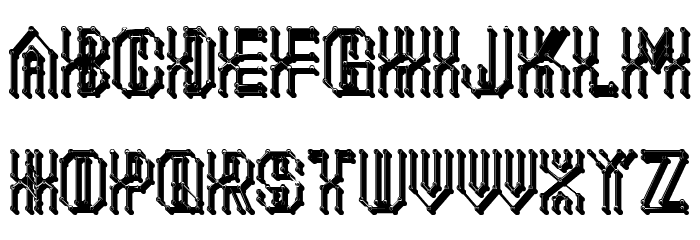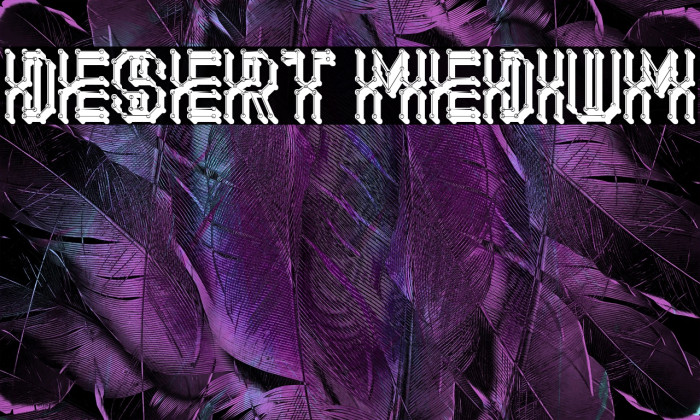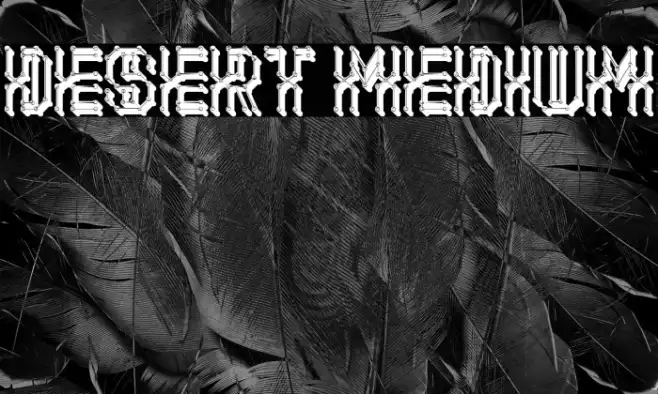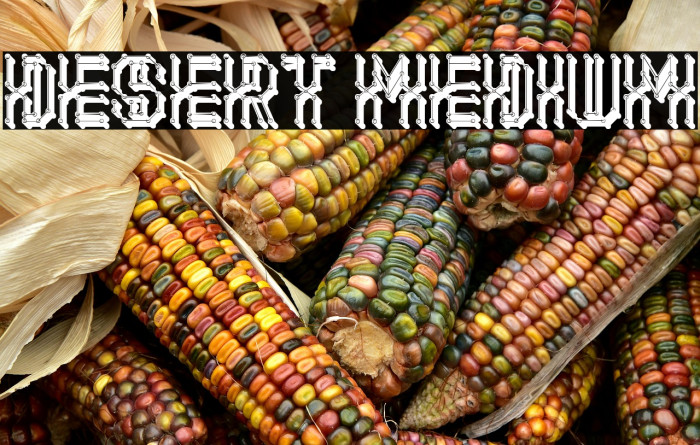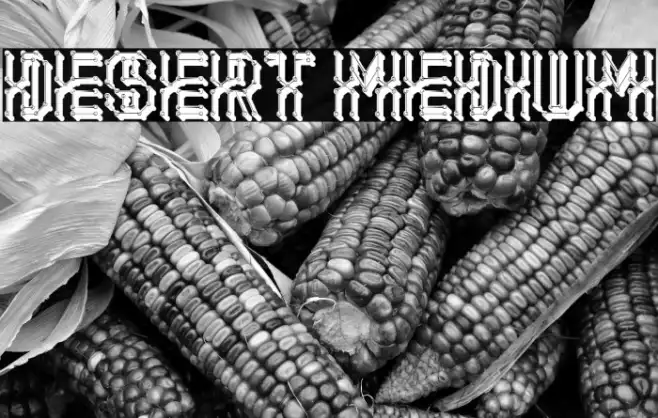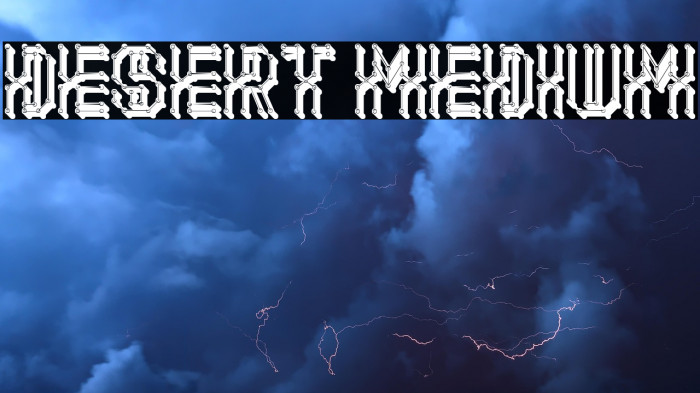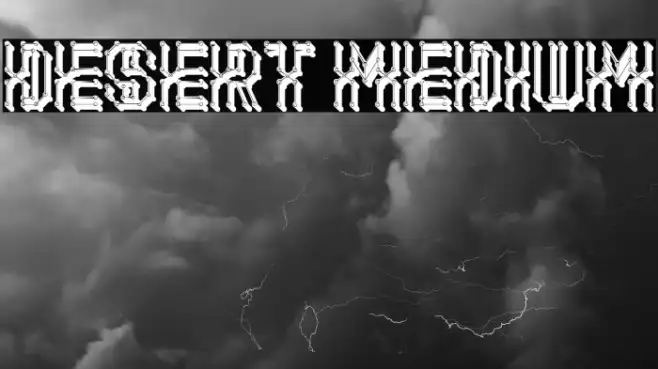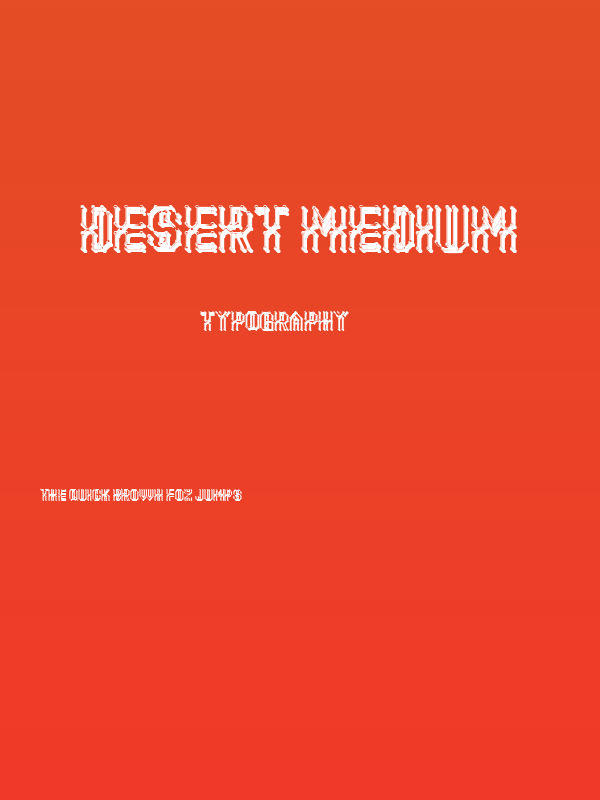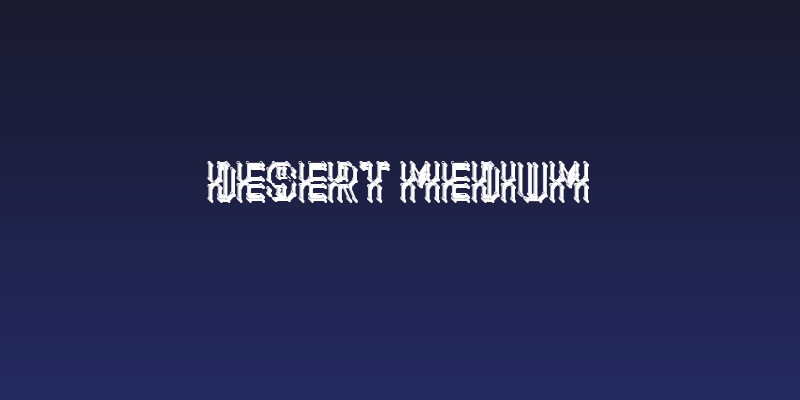
Desert Medium Font
Desert Medium Description
This font features a bold and intricate design with a distinct geometric pattern. Each character is crafted with a series of angular lines and sharp edges, creating a sense of depth and complexity. The uppercase letters exhibit a uniform height, while the lowercase letters maintain a consistent style, enhancing readability. The numbers and special characters are designed to match the overall aesthetic, ensuring a cohesive look. This font's unique style makes it stand out, offering a modern yet slightly retro feel that can add a striking visual element to any project.